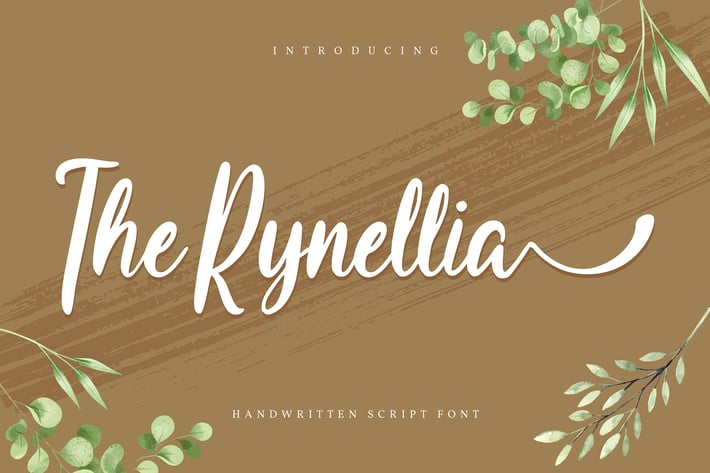
The Rynellia | Handwritten Script Font
The Rynellia | Handwritten Script Font with a calligraphy style, So beautiful on invitation like greeting cards, branding materials, business cards, quotes, posters, and more!